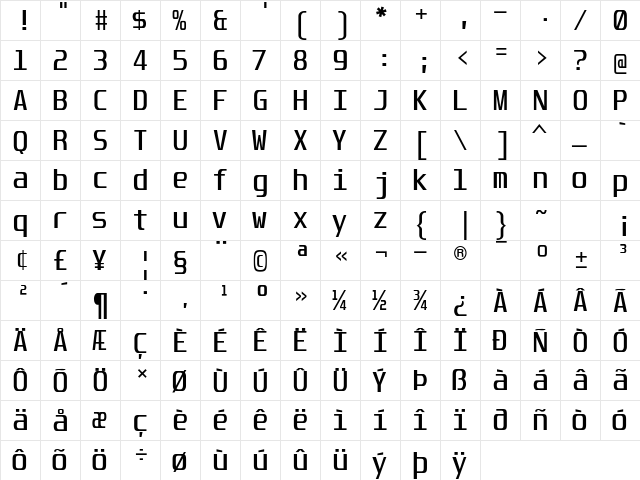
Unispace Regular
Design Context for Unispace Typeface
Unispace is a composed and adaptable typeface that performs quietly and consistently across a wide range of design contexts.